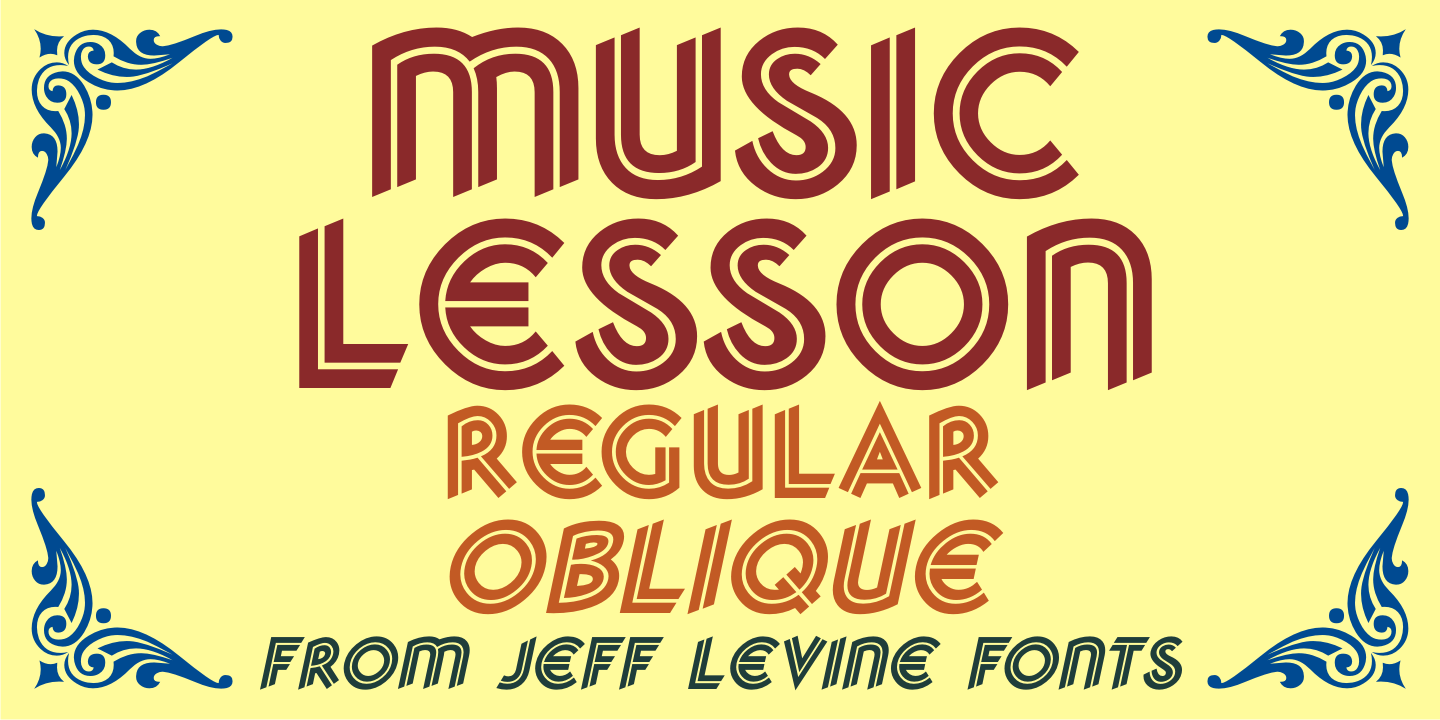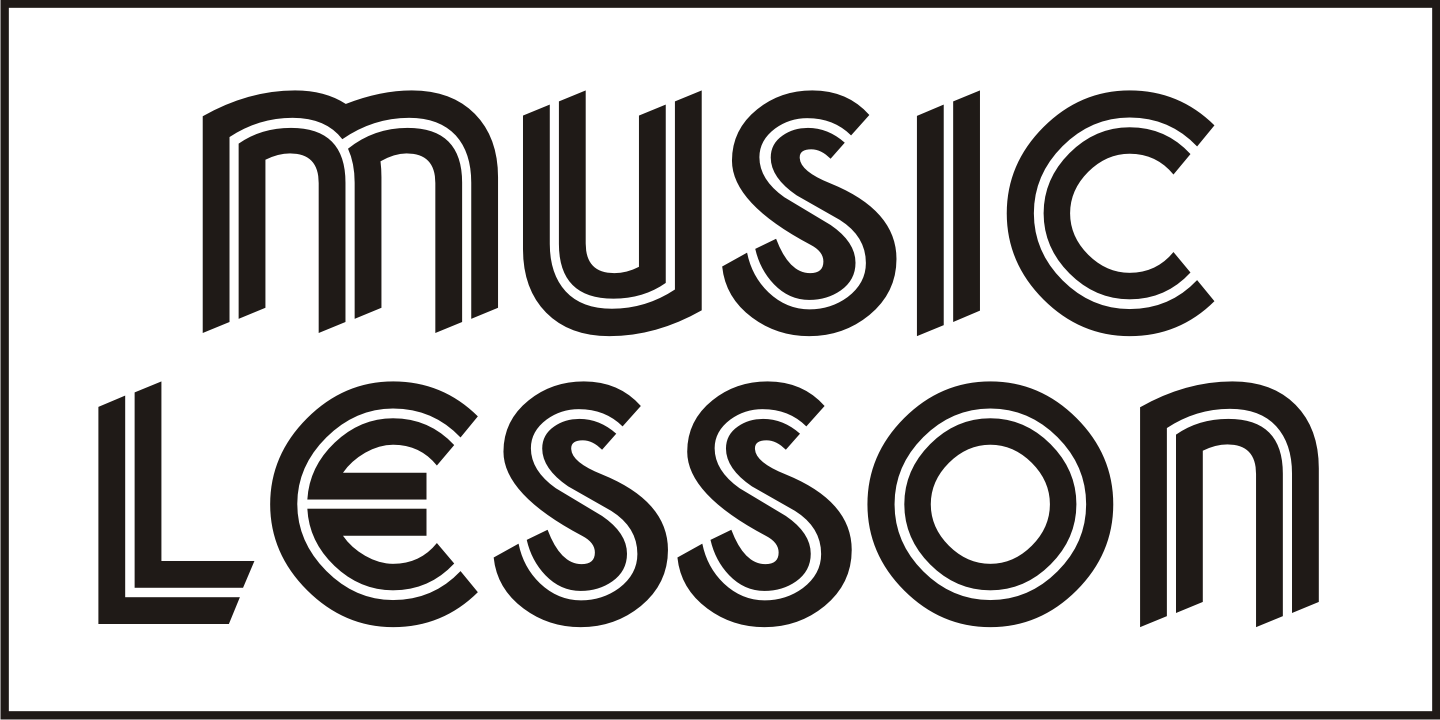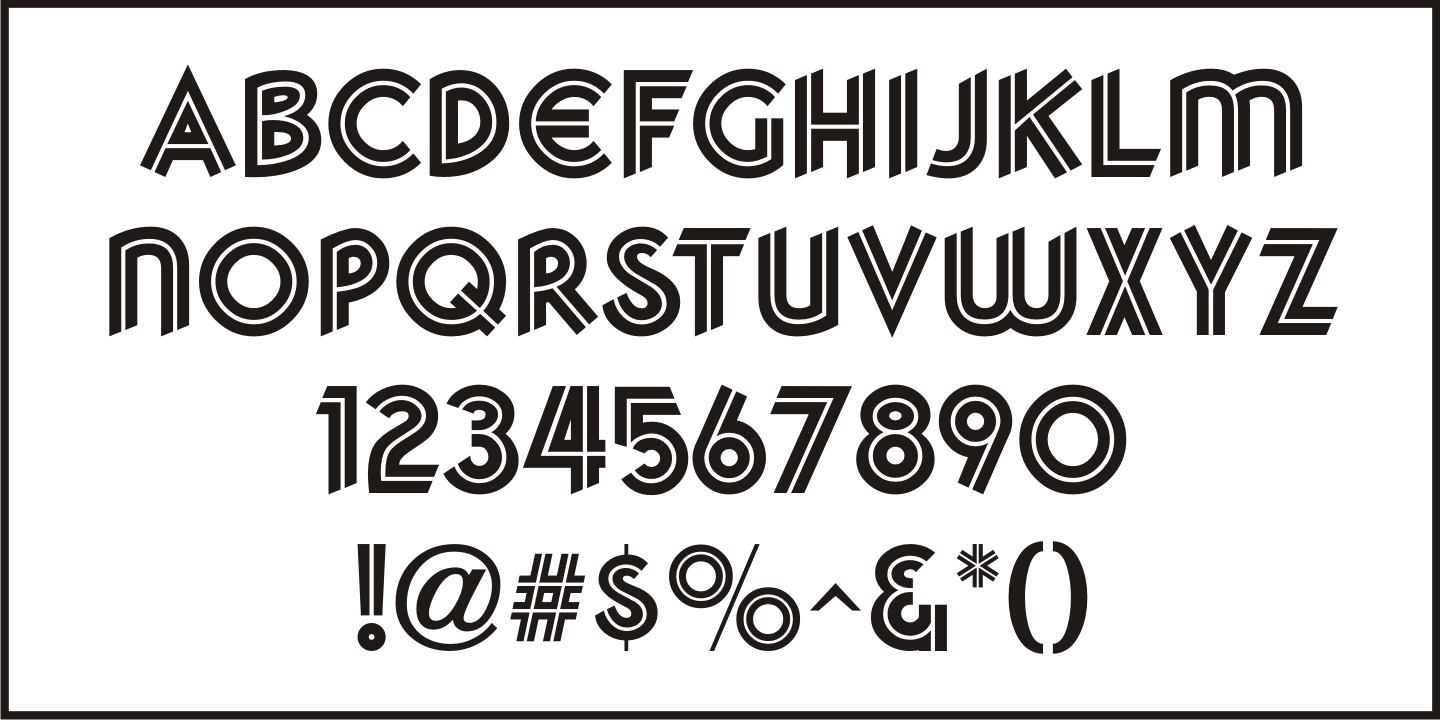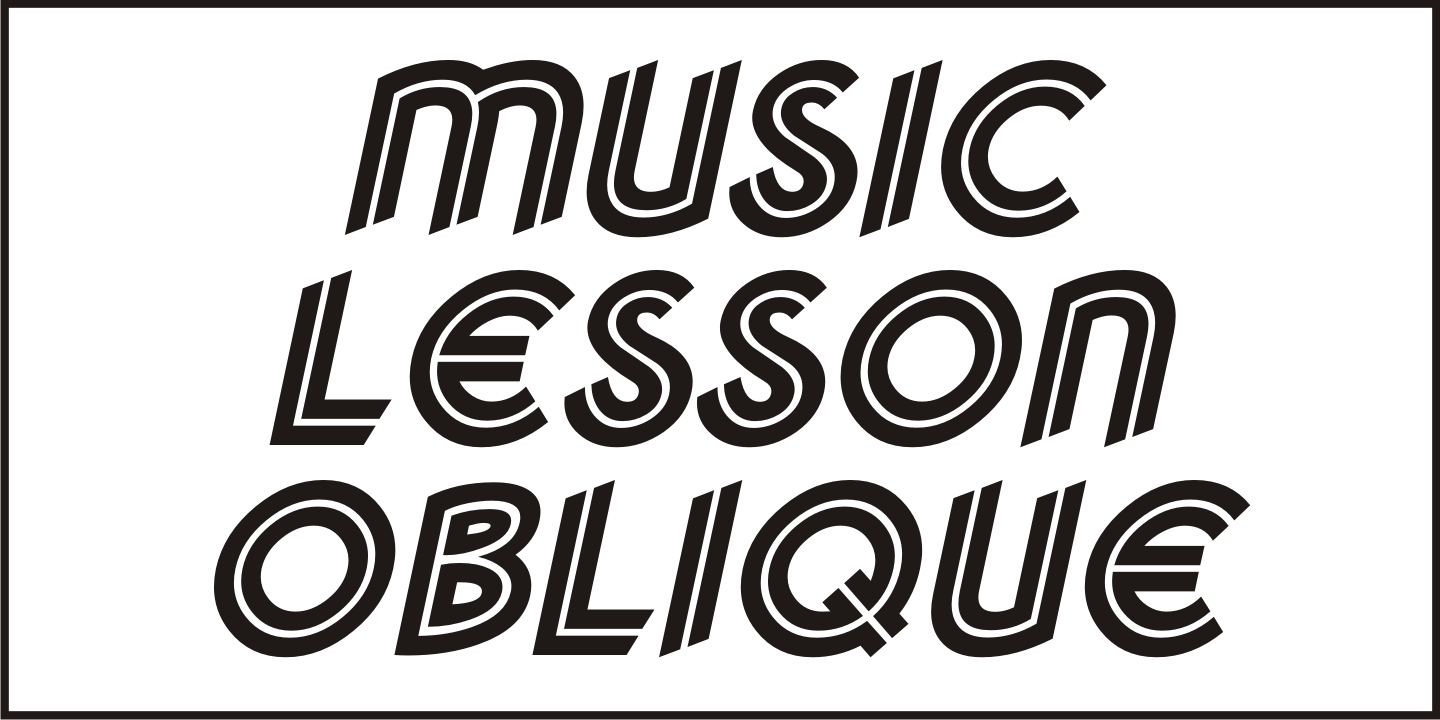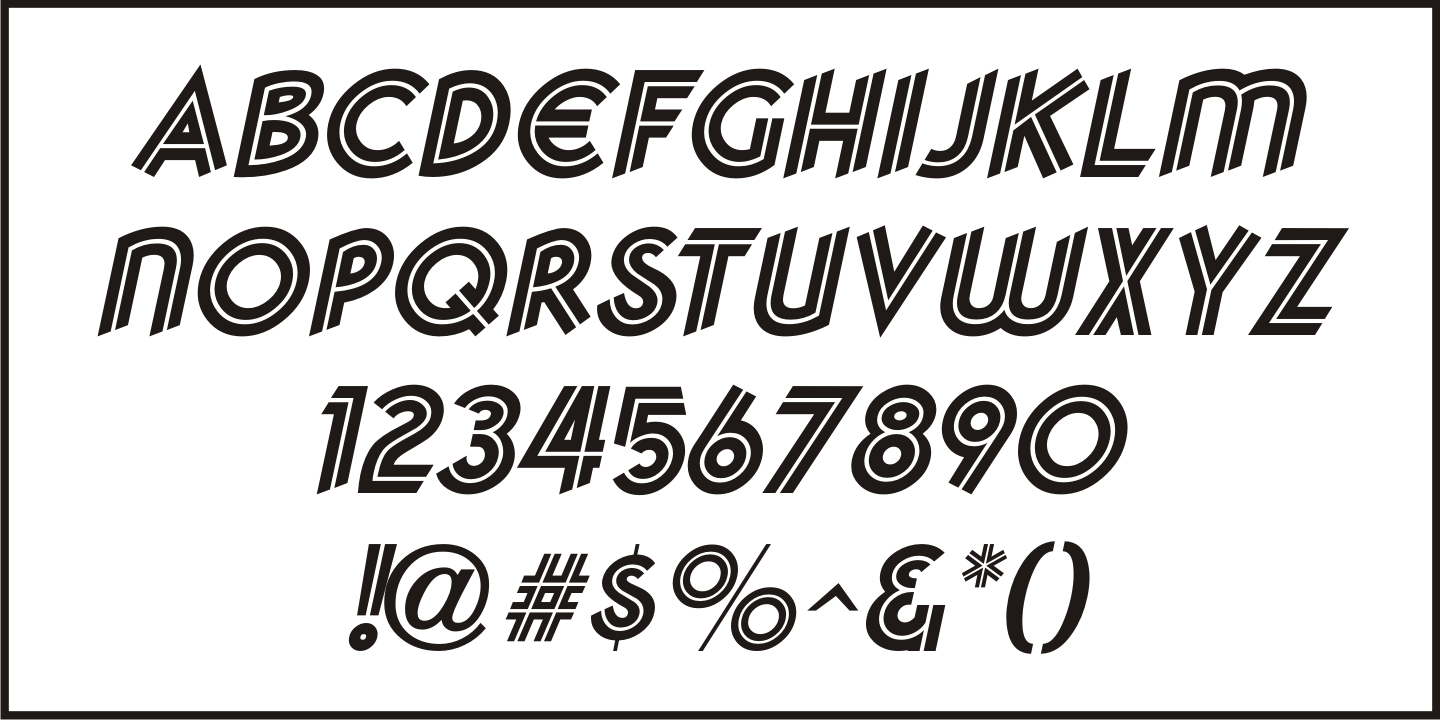
Music Lesson
During the 1940s and 1950s, the Miller Music Corporation issued a number of its songs with a stock cover design for their 'Miller Series of Piano Solos” but the song titles were hand lettered in an Art Deco dual line design.
Recreated digitally as Music Lesson JNL, this type design is available in both regular and oblique versions.
Music Lesson JNL Regular by Jeff Levine Fonts